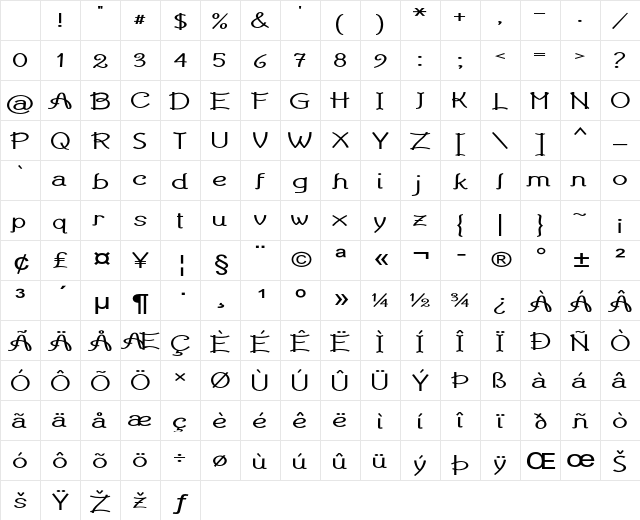
Complete Scrapbook Curls Expanded Bold glyph index. Displaying only characters natively supported by Scrapbook Curls Expanded Bold font.
Scrapbook Curls is a composed and adaptable typeface that performs quietly and consistently across a wide range of design contexts. Its bold stroke weight gives it real presence on the page.